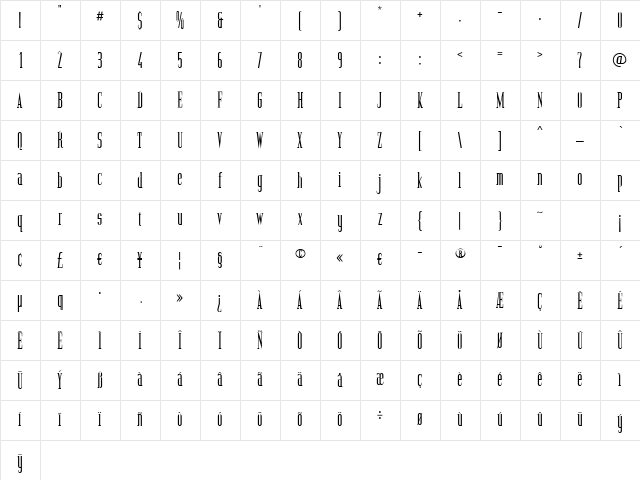
Offbeat is a composed and adaptable typeface that performs quietly and consistently across a wide range of design contexts.
Who designed the Offbeat Medium font?